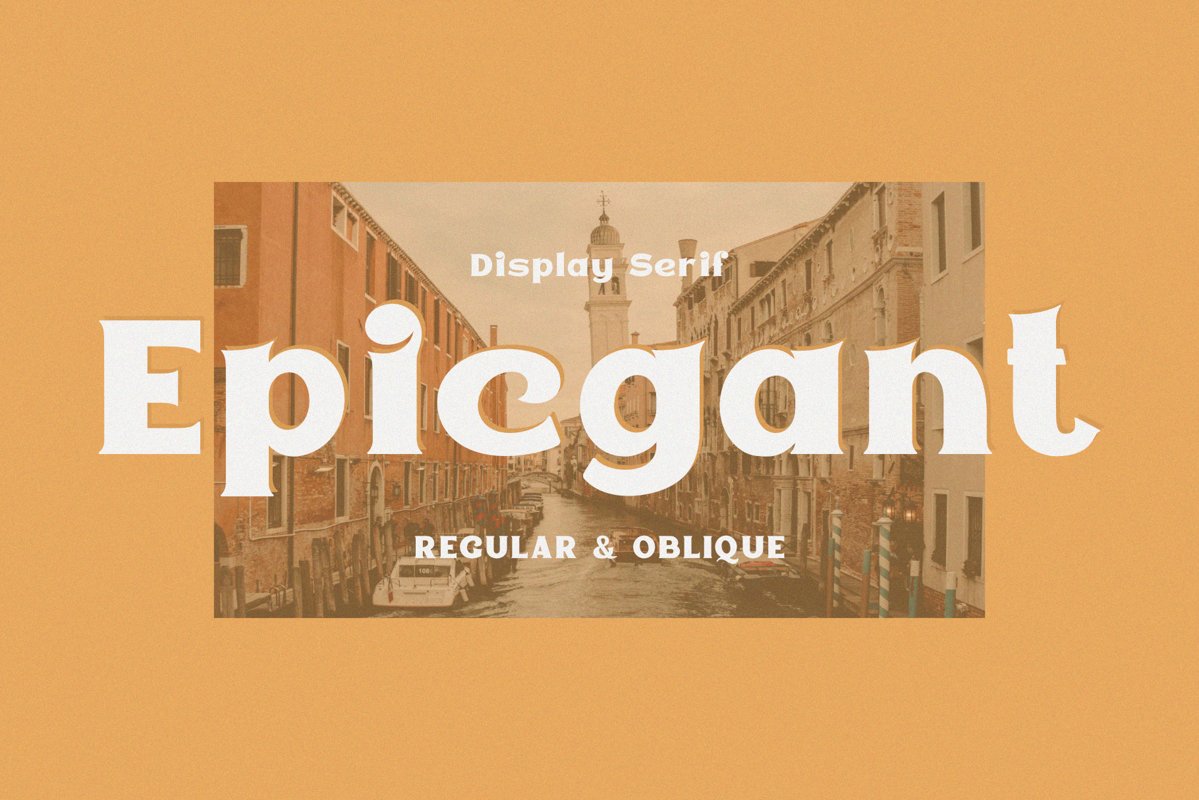
Epicgant
EpicgantOblique
Epicgant is a sans serif font with elegant characters. Epicgant is perfect for your elegant-themed work, suitable also for elegant vintage. This font is available in two font style variants, making it easy to do work on various design themes. Epicgant is equipped with multilingual accents.Files included: